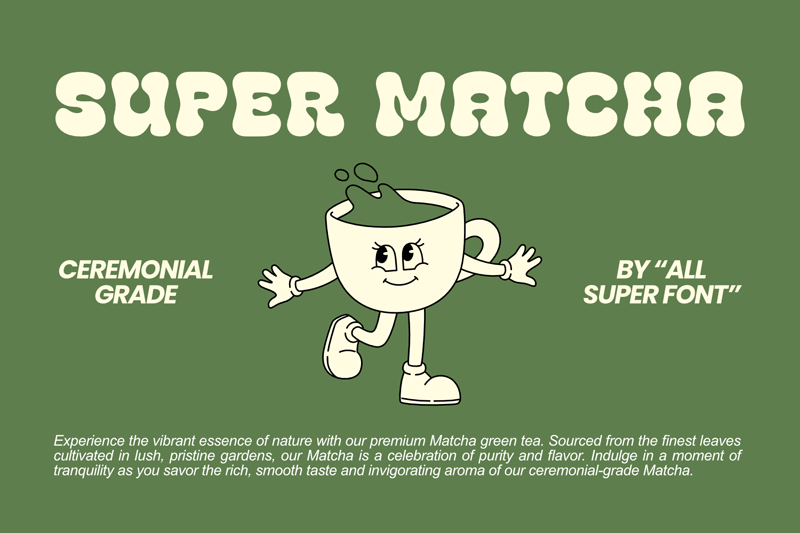
Preview and download Super Matcha Font. Created by fsuarez913 in Fancy Groovy styles with Free for personal use license.
This font is for PERSONAL USE ONLY!. If you want to use this font for commercial purposes, you will need to purchase a commercial license. You can purchase a commercial license at https://nhfonts.etsy.com/listing/1748986945/super-matcha-font Supercharge your designs with Super Matcha! This funky font blends the boldness of a classic 70s typeface with a smooth, groovy feel. Imagine eye-catching posters and groovy packaging that pops. Super Matcha is perfect for adding a touch of retro charm and timeless appeal to your projects. |